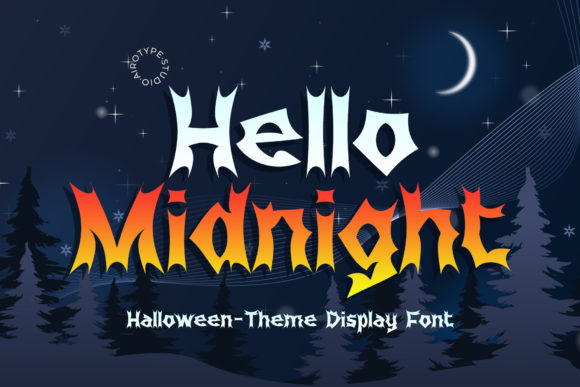
Welcome to the world of Hello Midnight, the display font that captures the essence of coolness, drama, and a hint of the spooky. This font by airotype is more than just a collection of letters — it's a creative playground where your imagination can run wild. Whether you're designing captivating cartoon-related projects, creating enchanting children's games, or embarking on any creative journey that demands a touch of the extraordinary, Hello Midnight will accompany you every step of the way.
Step into the realm of awe-inspiring school handouts. With Hello Midnight by your side, your educational resources will transform into captivating works of art. Its bold and captivating strokes demand attention, inviting students into a world of knowledge and wonder. Unleash your creativity and craft handouts that inspire, engage, and leave a lasting impression.
Hello Midnight is not just a font; it's a portal to a realm of boundless imagination. It's the perfect companion for those who dare to be different, to embrace the unusual, and to leave an indelible mark on the world. So, dive into the world of Hello Midnight and let your creativity soar to new heights.